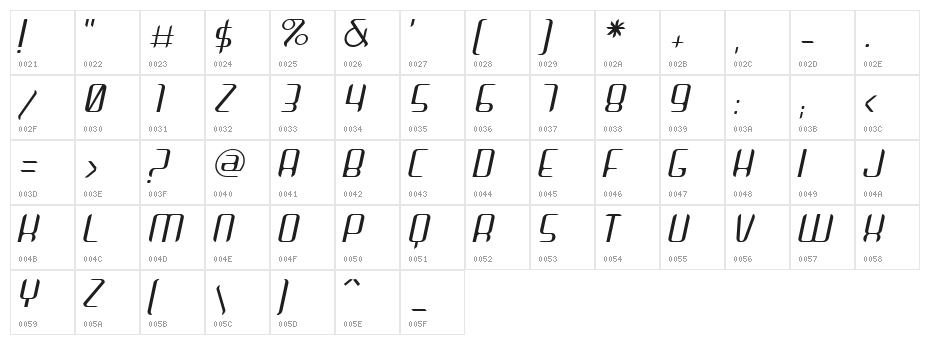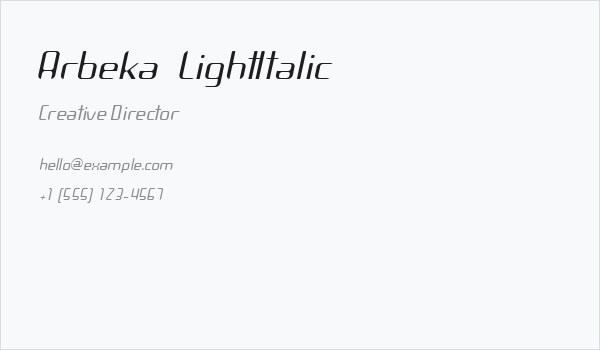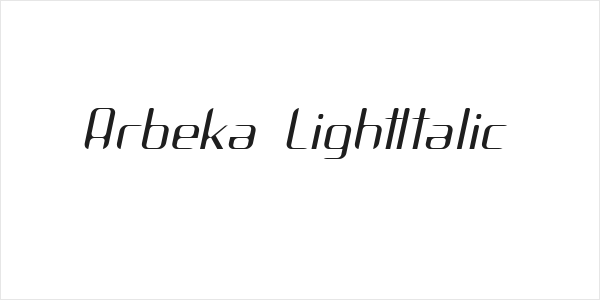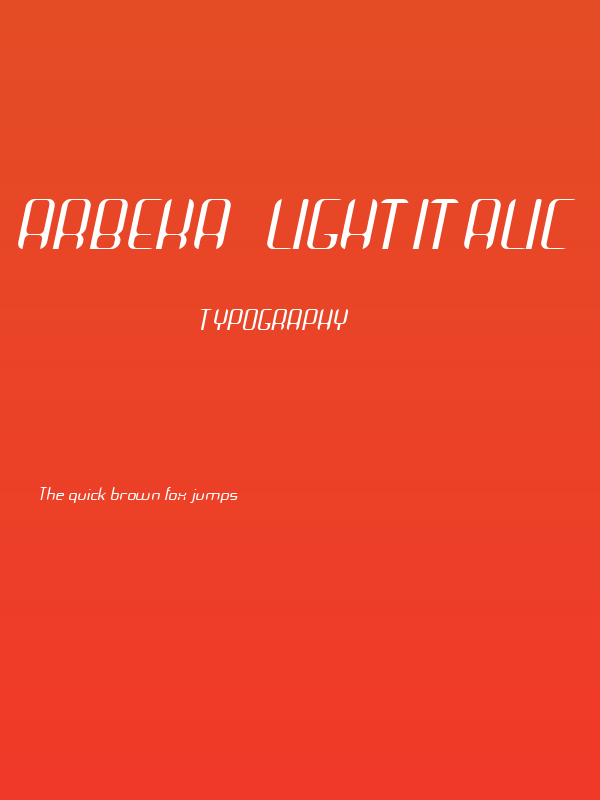
Arbeka LightItalic Font
Arbeka LightItalic Description
This font features a sleek, modern design with a light and italicized style. The characters are slightly condensed, giving it a streamlined appearance. The strokes are smooth and consistent, with a medium contrast between thick and thin lines. The overall look is contemporary and stylish, making it suitable for a variety of design projects. The uppercase and lowercase letters maintain a cohesive style, and the numerals are clear and easy to read. Special characters are included, adding versatility to its use.